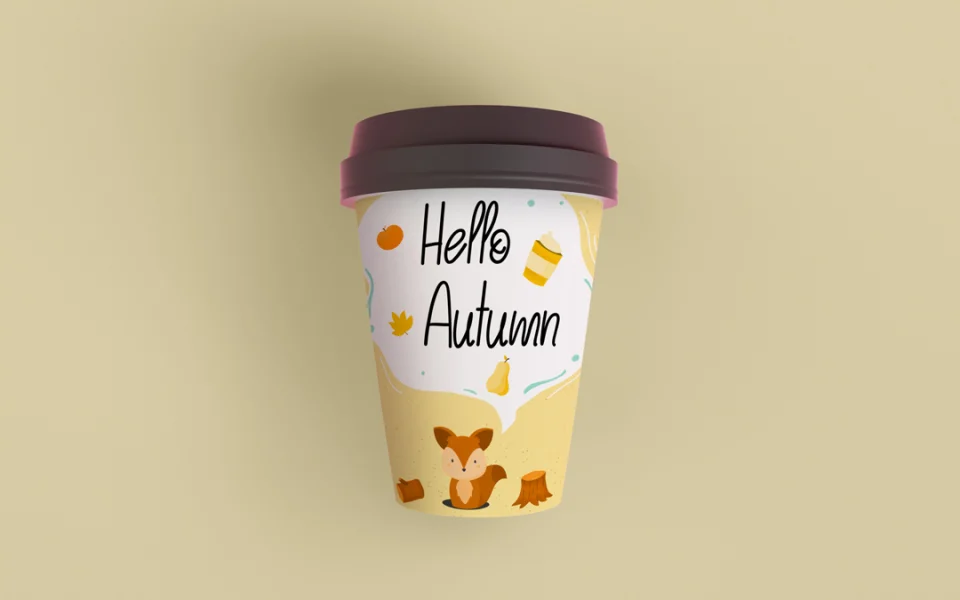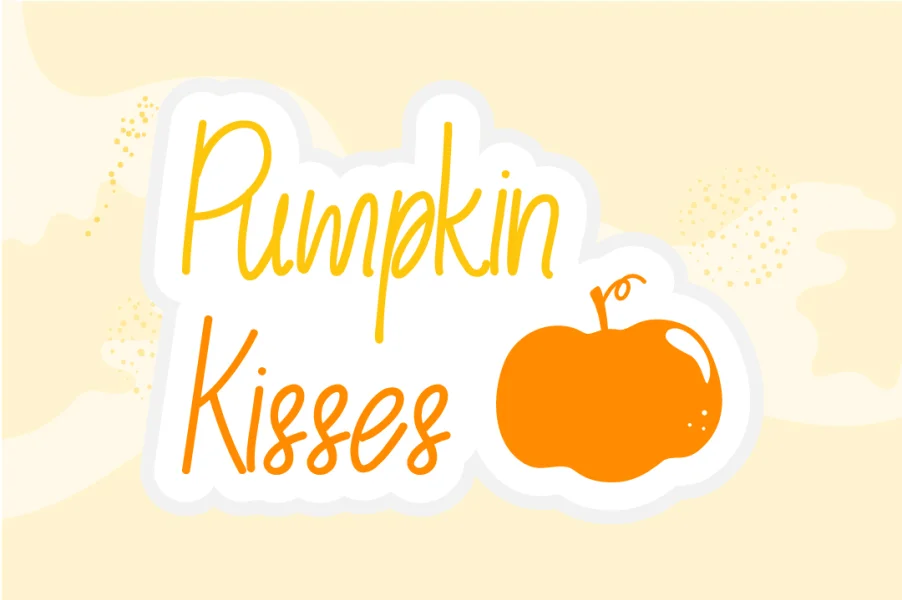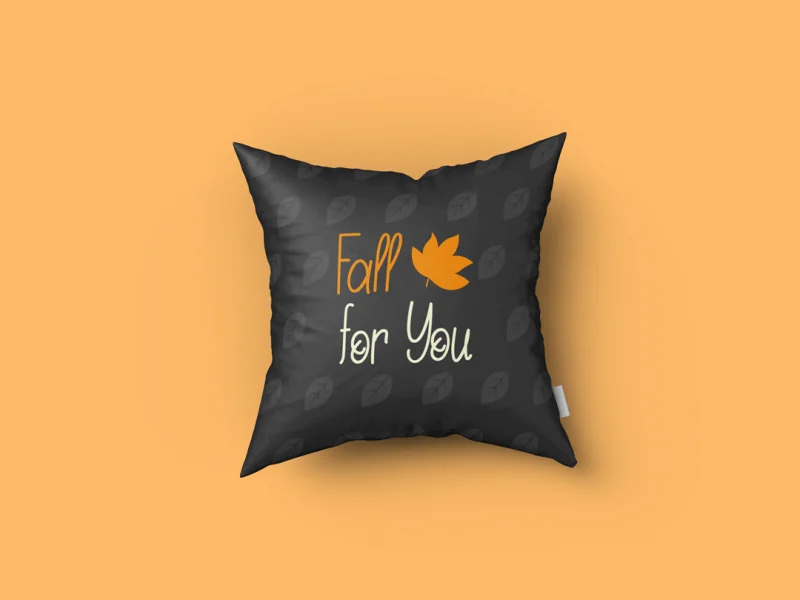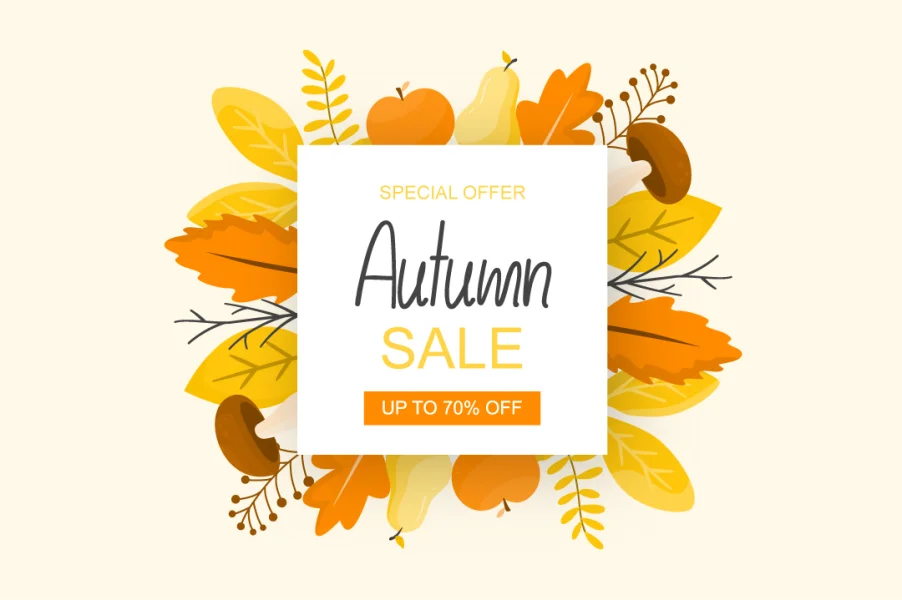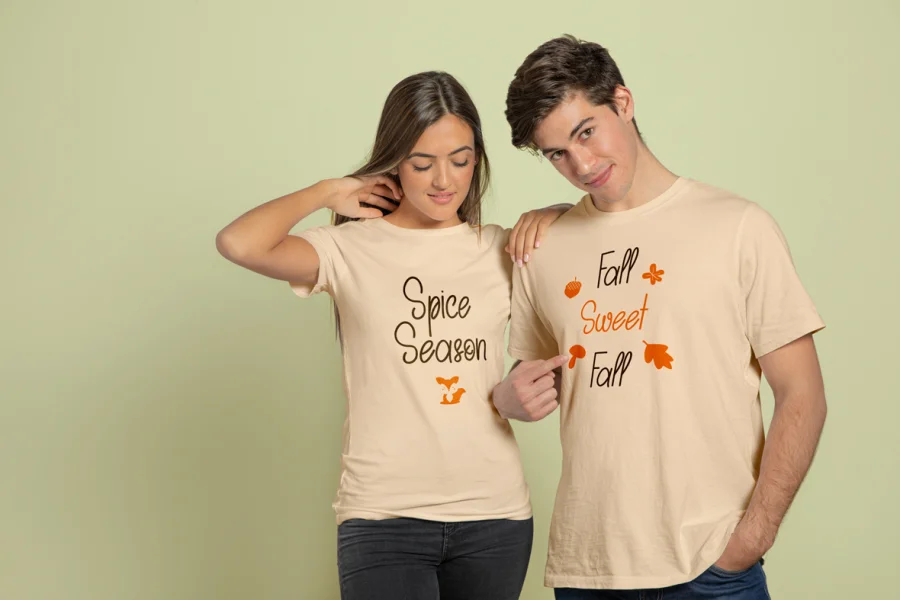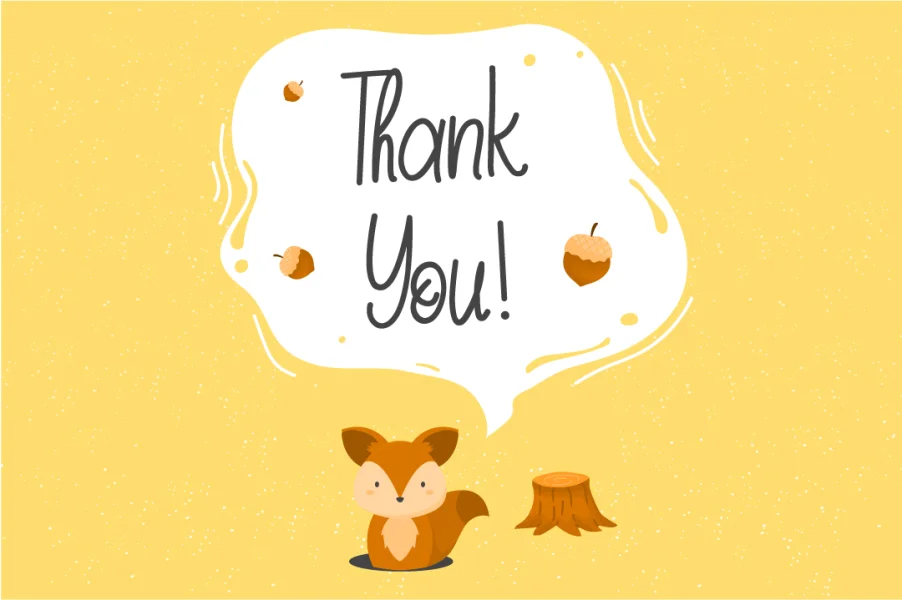
Autumn Days is a sweet and friendly handwritten font. Fall in love with its incredibly versatile style and use it to create gorgeous wedding invitations, beautiful stationary art, eye-catching social media posts, and much more!